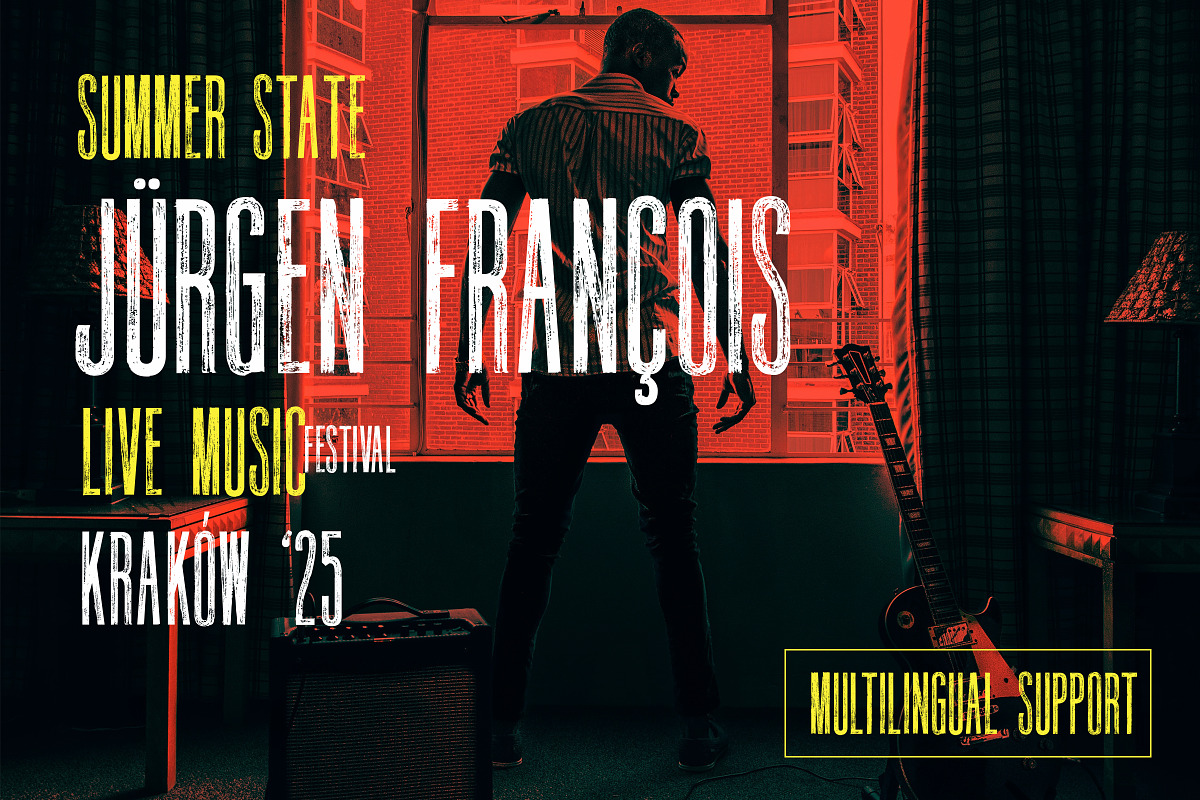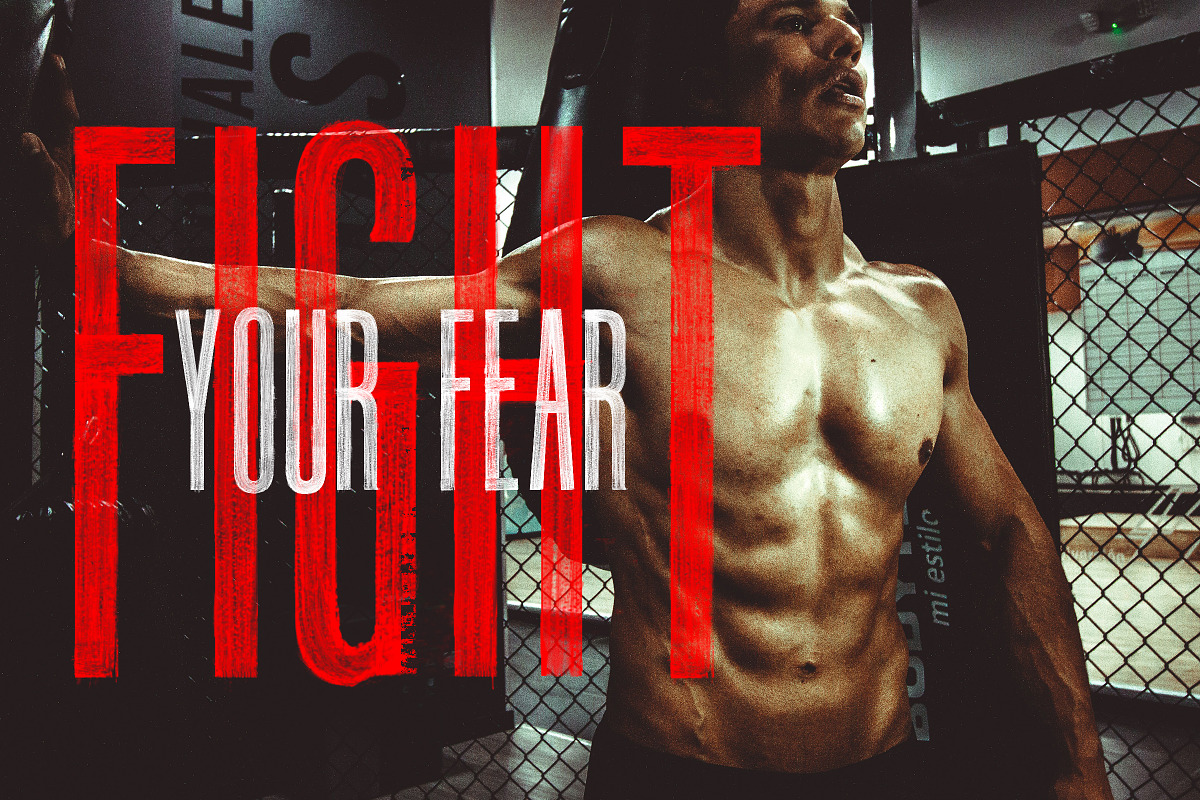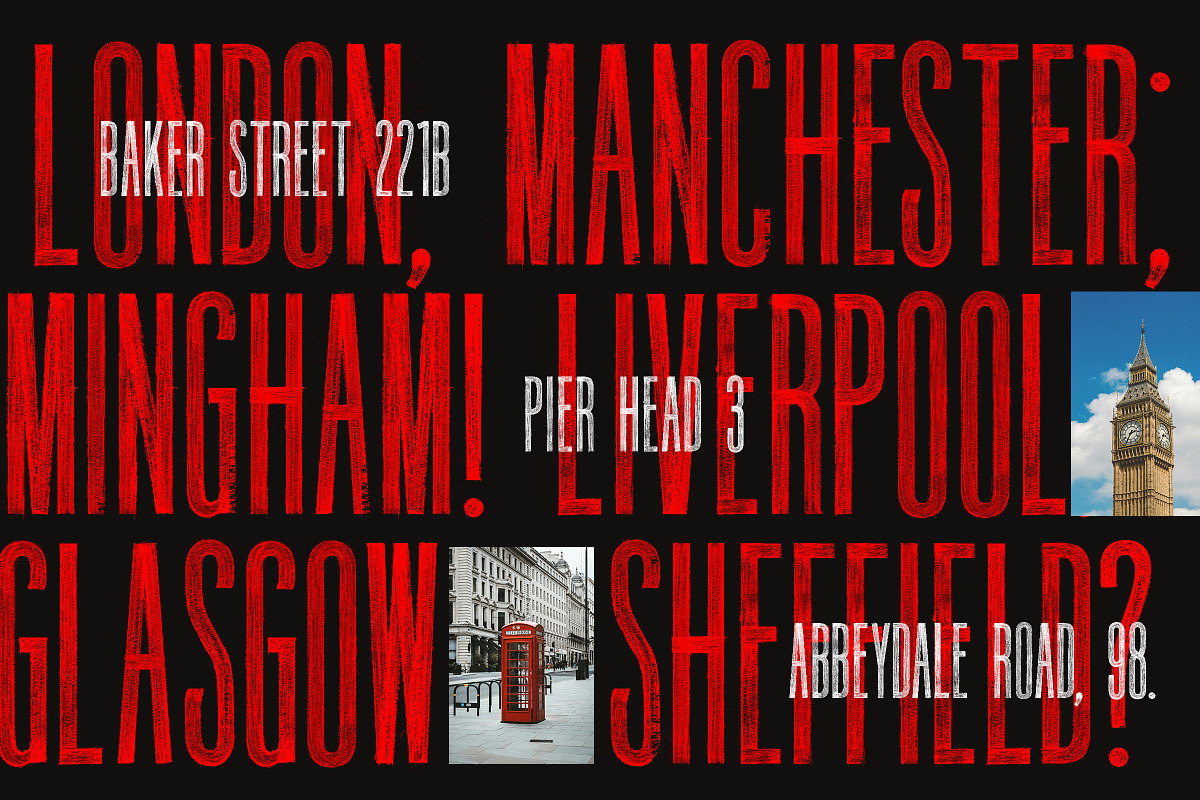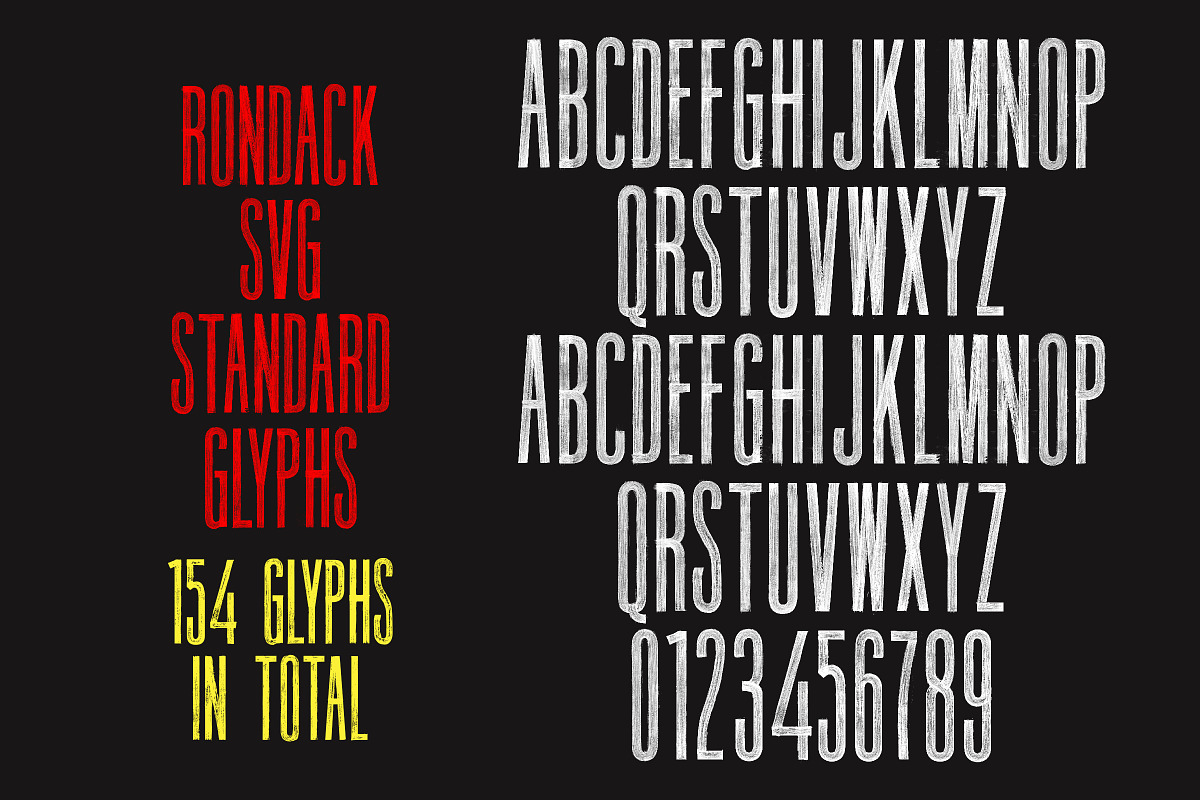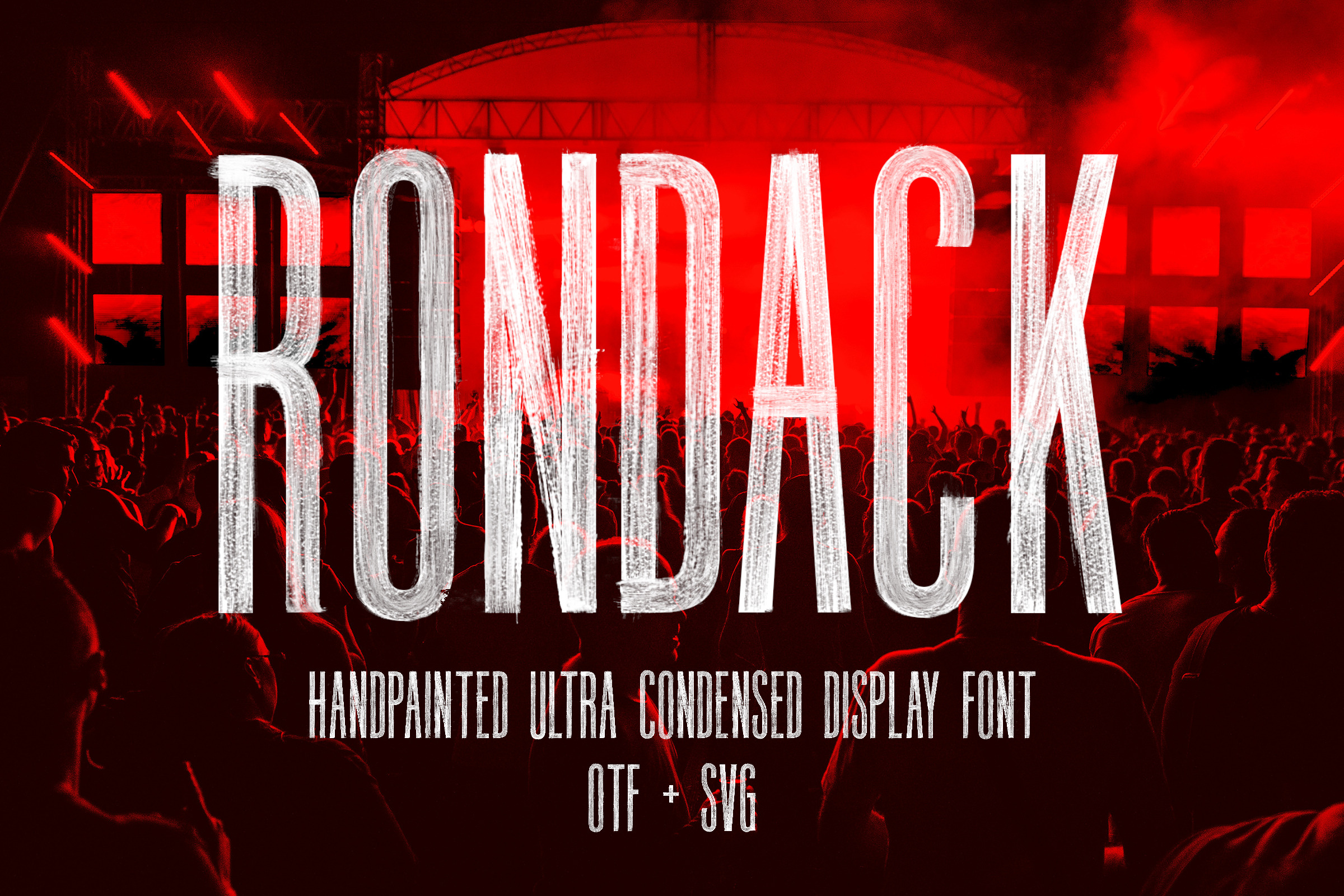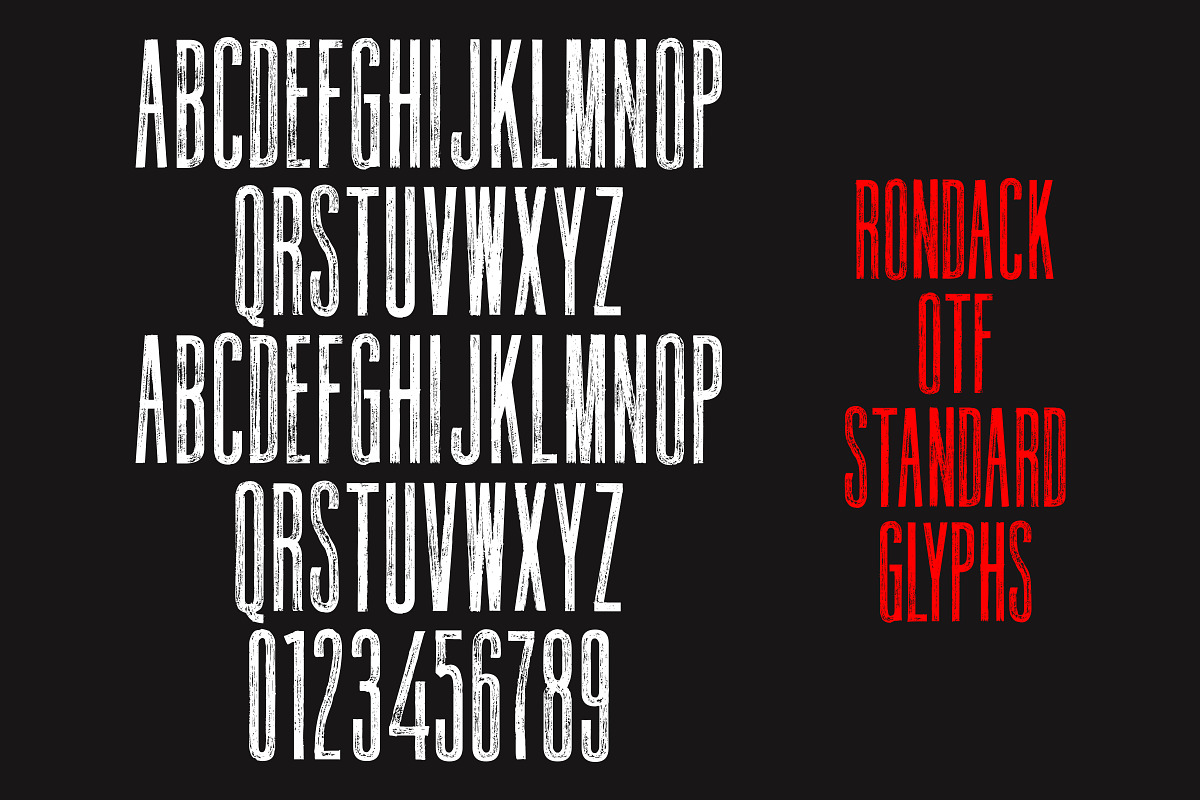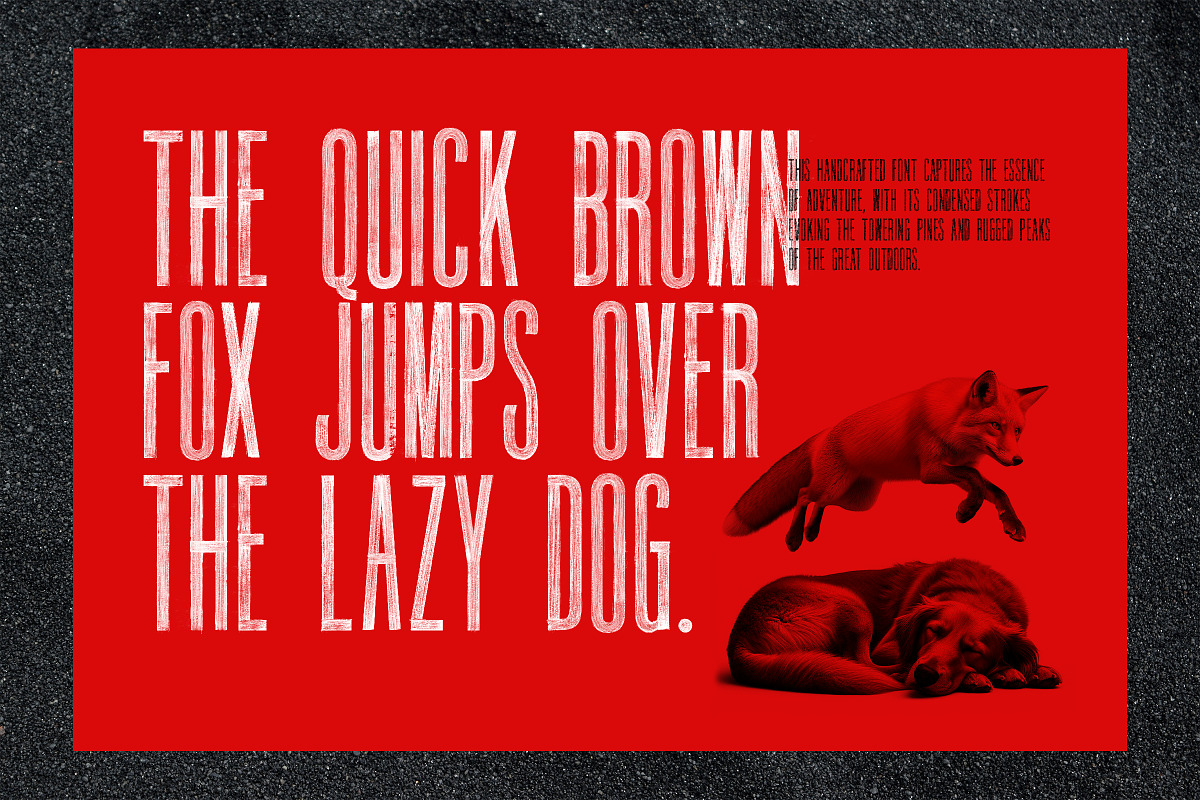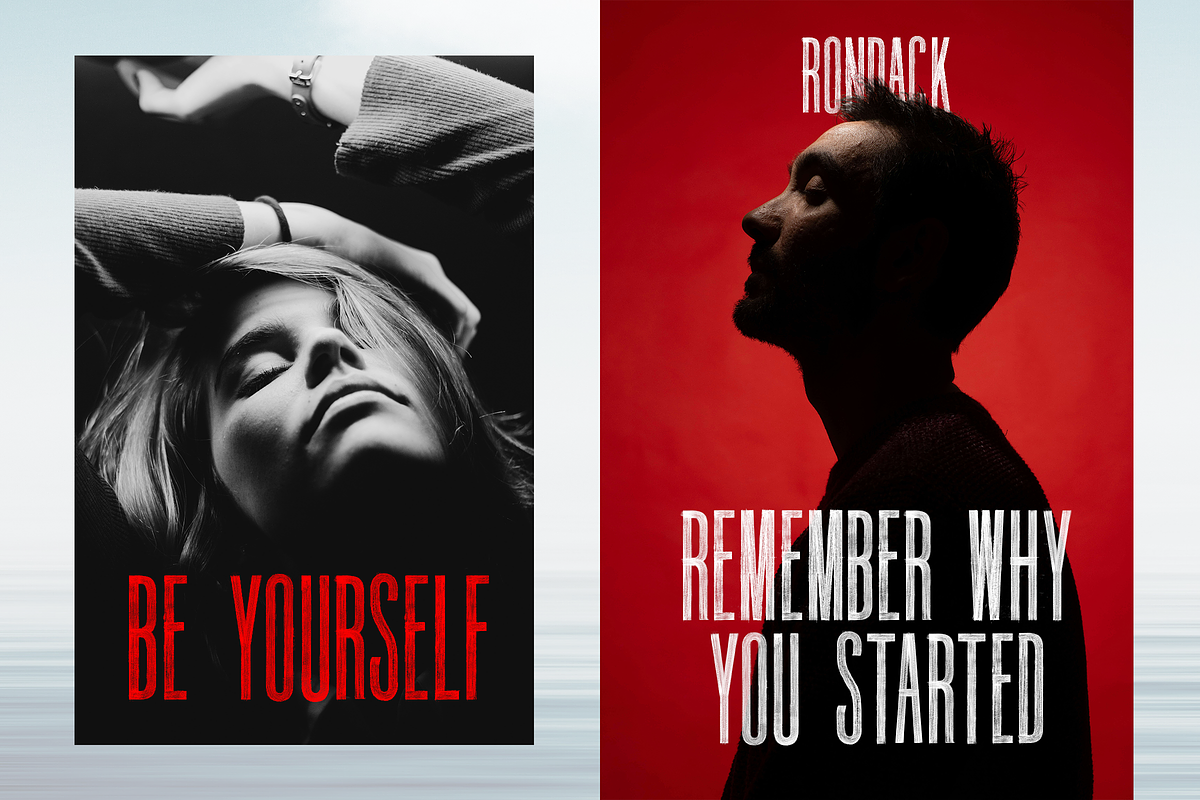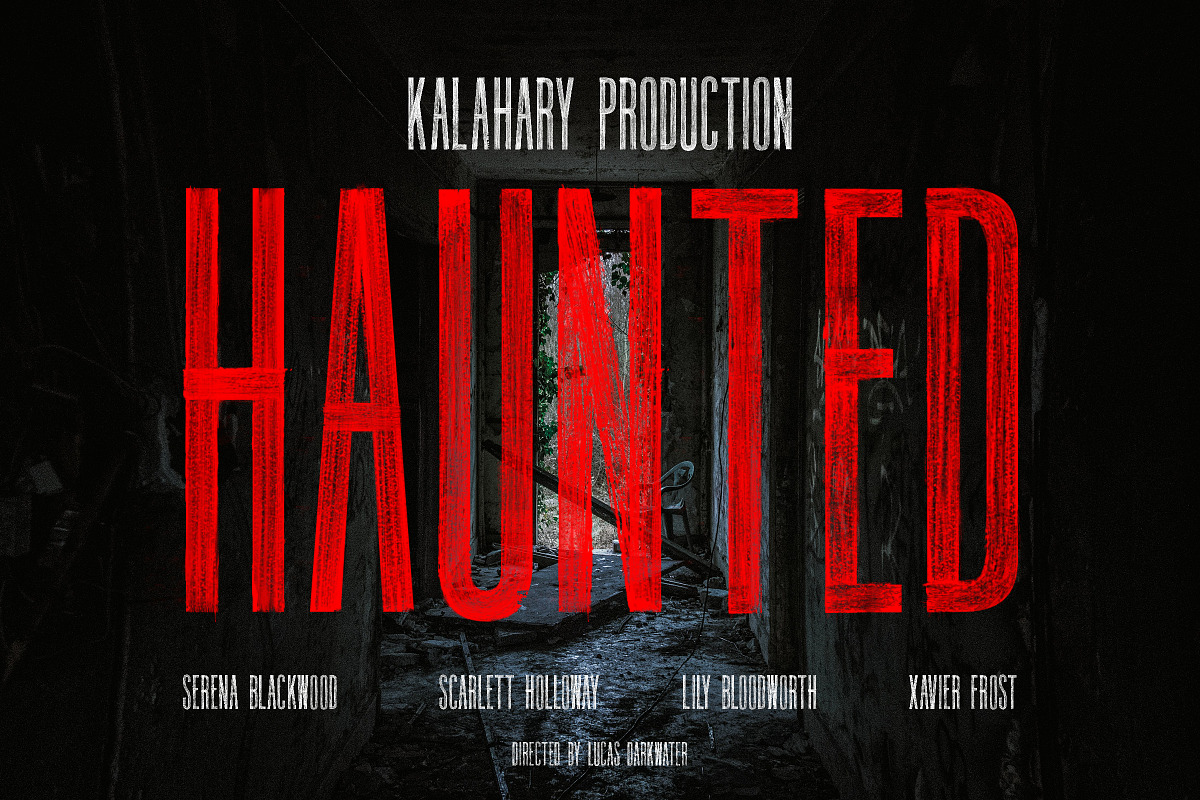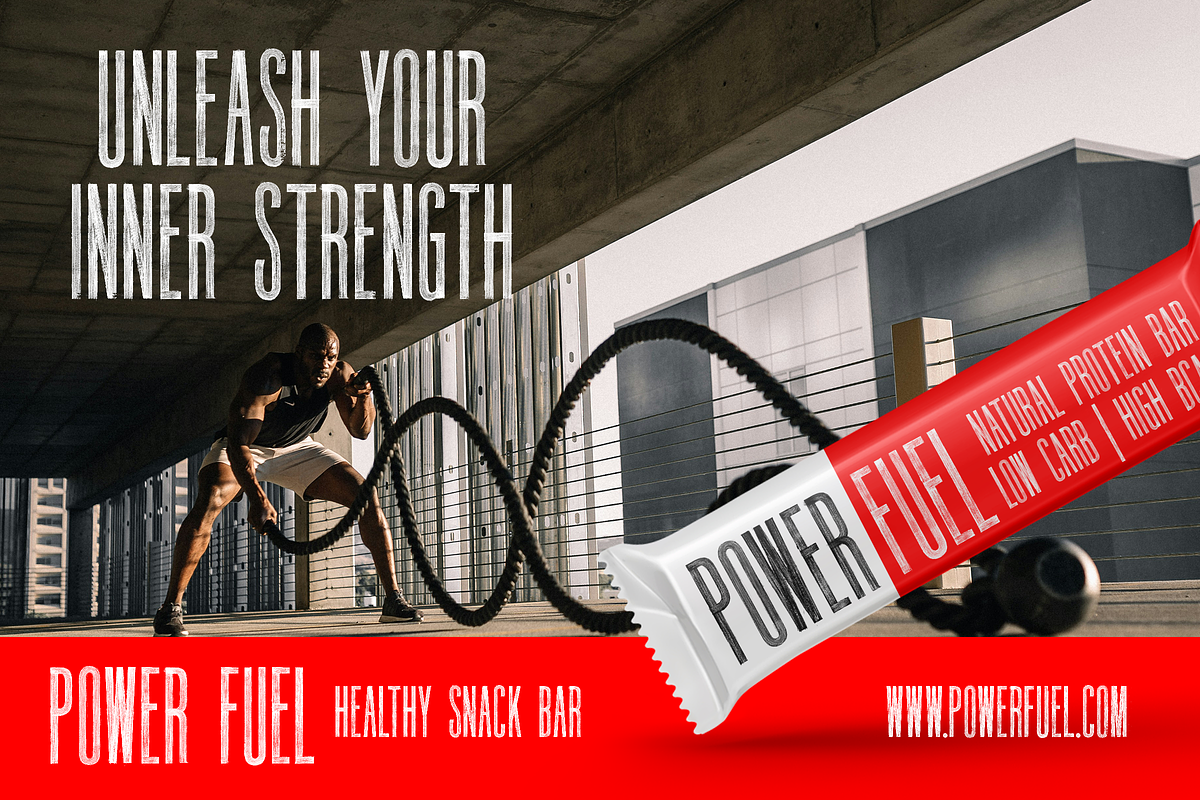
Rondack SVG - Ultra Condensed Font
Introducing Rondack, a stylish condensed hand painted SVG & OTF font. This sans serif font is super tall, making it a perfect display font for use in projects like posters, packaging, advertisements & movie titles.
Enjoy the natural texture and transparency of the SVG font which makes an eye catching statement.